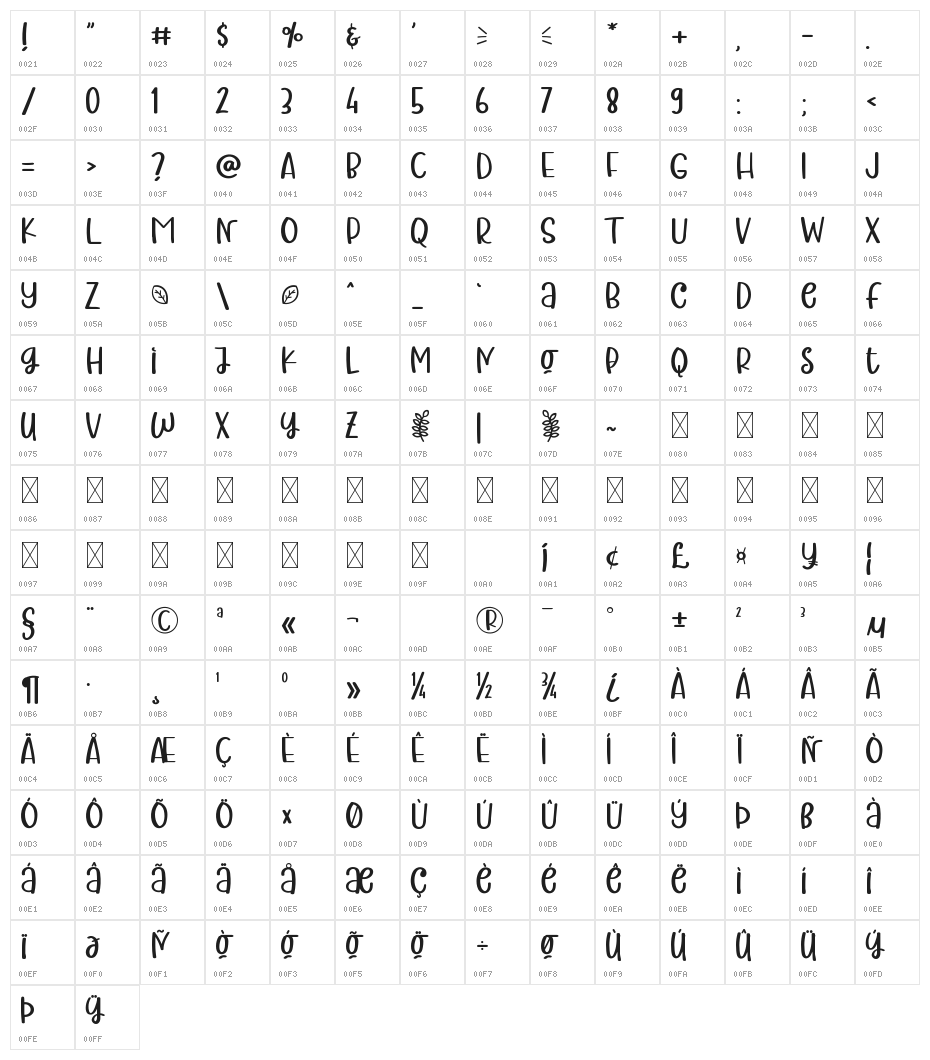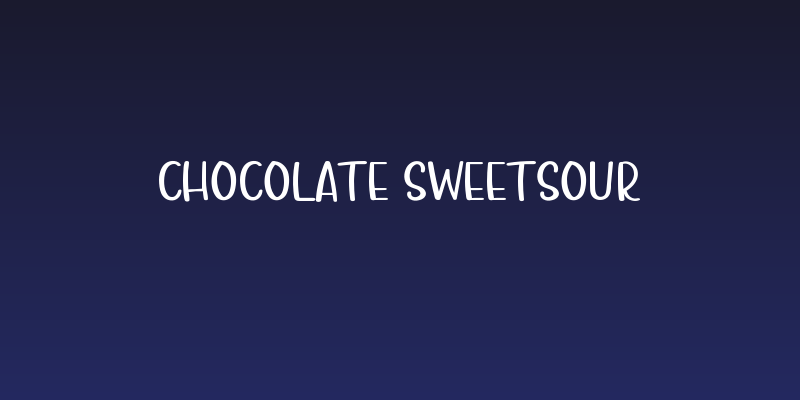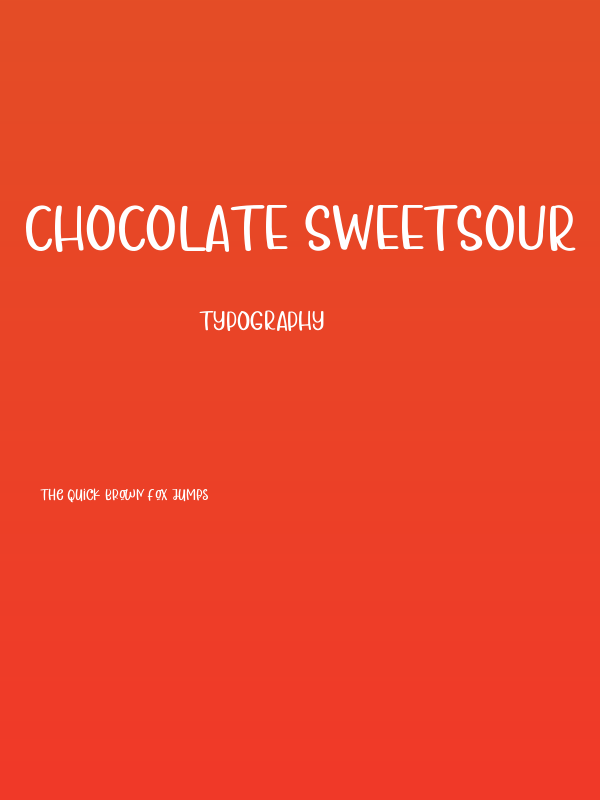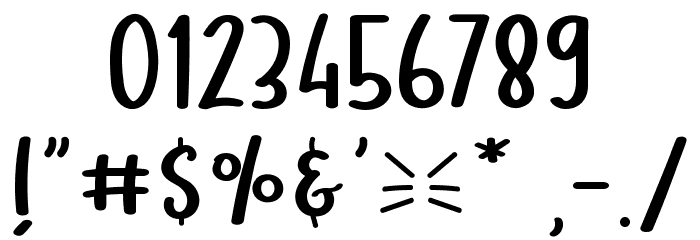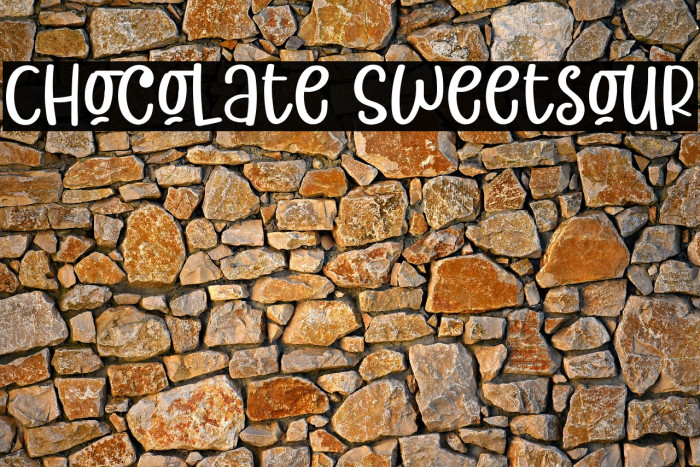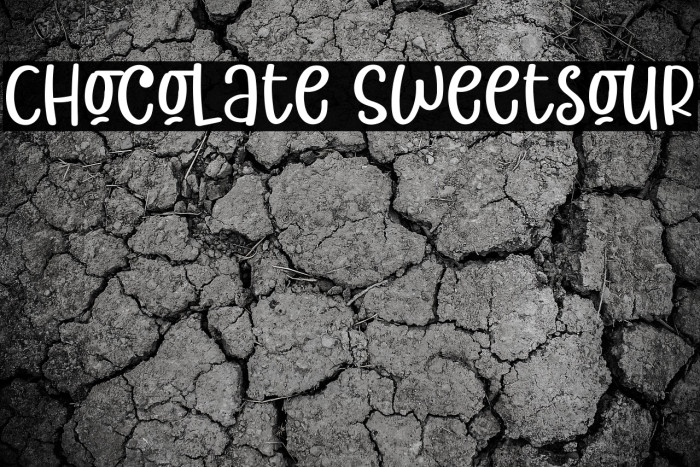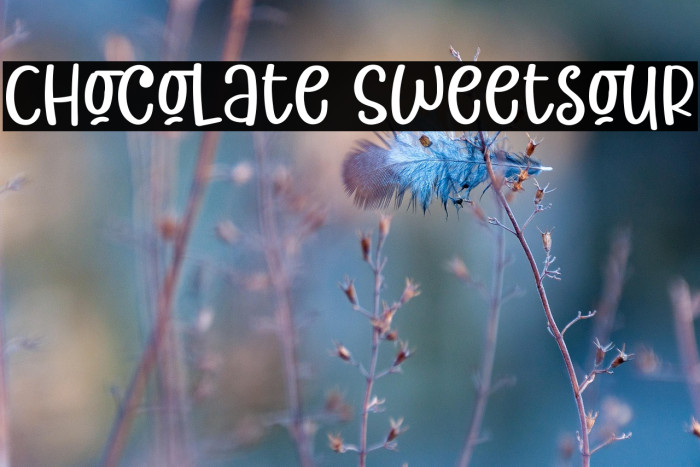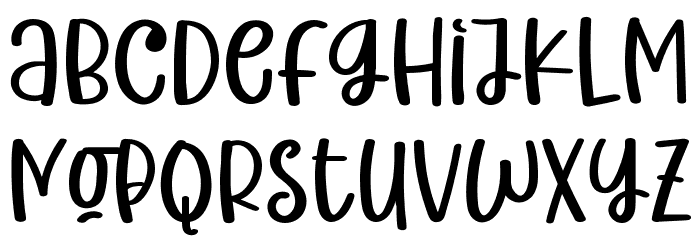
Chocolate Sweetsour Font
Chocolate Sweetsour Description
This playful and whimsical font features a handwritten style with a casual and friendly appearance. The letters are slightly slanted, adding a dynamic and lively feel. The strokes are smooth and rounded, giving it a soft and approachable look. The font maintains a consistent weight throughout, with medium contrast between thick and thin strokes. It includes a full set of uppercase and lowercase letters, numerals, and a variety of special characters, making it versatile for various design needs.
| Use Case | Logos, Headlines, Social media graphics |
| Proposed Projects | Ideal for greeting cards, children's books, playful branding, and social media graphics. |